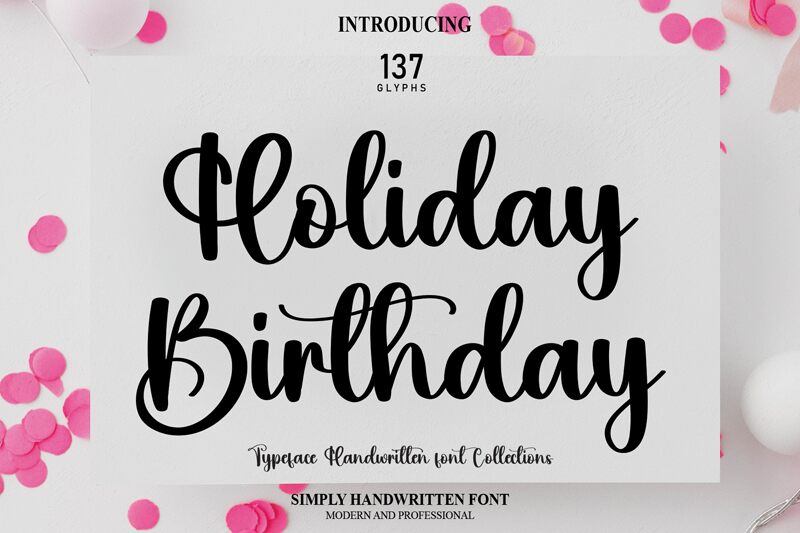
Holiday Birthday
Holiday Birthday is a stunning calligraphy font designed by scratchones, exuding elegance and sophistication. With its graceful curves and flowing strokes, this font adds a touch of whimsy to any project. Perfect for wedding invitations, greeting cards, or branding materials, Holiday Birthday brings a sense of joy and celebration to your designs. Its versatility makes it suitable for various projects such as event posters, product packaging, or even social media graphics. Let Holiday Birthday be the life of the party and infuse your creations with a dash of festive charm!
The latest style letters are perfect for wall displays, wedding invitations, social media post logos, advertisements, product packaging, product designs, labels, photography, watermarks, invitations, stationery, and any project that requires taste handwriting.